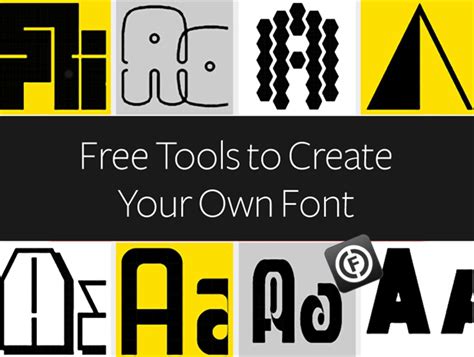
Lingojam: Create Your Own Custom Font
Hey guys! Ever wanted to design your own unique font ? Maybe you’ve got a cool idea for lettering that just isn’t out there. Well, let me tell you about Lingojam , a super neat online tool that lets you do just that! It’s surprisingly easy to use, even if you’re not a professional designer. We’re talking about a platform where you can literally draw your letters, and Lingojam turns them into a font you can download and use. Pretty awesome, right? This isn’t just for graphic design nerds; anyone can jump in and make something cool. Whether you want a quirky font for your personal blog, a signature font for your social media, or even something more serious for a small project, Lingojam is your go-to. It democratizes font creation, making it accessible to everyone. You don’t need any fancy software or a degree in typography. All you need is a mouse, a trackpad, or even a stylus if you’re feeling fancy, and your imagination. The process is intuitive, allowing you to focus on the creative aspect rather than getting bogged down by technicalities. It’s a fantastic way to add a personal touch to your digital life and stand out from the crowd. Think about the possibilities: personalized invitations, unique business cards, or just a fun way to express yourself online. Lingojam truly unlocks a new level of creativity for the everyday internet user.
How Does Lingojam Work?
So, how does this magic happen, you ask? Lingojam makes font creation super straightforward. First off, you head over to their website, which is as simple as it gets. Once you’re there, you’ll see a grid representing the alphabet, both uppercase and lowercase, along with numbers and some common symbols. Your mission, should you choose to accept it, is to draw each character . Yes, you literally draw them! You can use your mouse or trackpad to sketch out each letter. Don’t worry about perfection here; Lingojam is pretty forgiving. The tool provides a basic drawing interface, and you can go letter by letter, creating your unique shapes. It’s kind of like digital graffiti, but with a purpose! The real beauty of Lingojam is its simplicity. You don’t get overwhelmed with a million options. It focuses on the core task: making your own font . After you’ve drawn all the characters you want to include (you can skip some if you don’t need them), you hit a button, and voila ! Lingojam compiles your drawings into a functional font file. This file is typically in TTF (TrueType Font) format, which is widely compatible with most operating systems and software like Microsoft Word, Adobe Photoshop, and more. The whole process is designed to be as frictionless as possible, ensuring that the creative flow isn’t interrupted by complex steps. It’s a truly empowering experience, seeing your own handwriting or doodles transformed into a digital typeface that you can then use anywhere. It’s like giving your digital identity a unique fingerprint, making your communication instantly recognizable. The satisfaction of using a font that you created is immense, and Lingojam makes it totally achievable.
Tips for Creating an Awesome Lingojam Font
Alright, design wizards and doodle enthusiasts, let’s talk about making your Lingojam font truly shine! While the tool is super easy, there are a few tricks up my sleeve to help you create something that’s not just unique, but also genuinely usable and awesome. First off, consistency is key , guys. Try to maintain a similar style, stroke width, and character height across all your letters. If your ‘A’ is super bubbly and your ‘B’ is sharp and angular, it might look a bit chaotic. Think about the overall vibe you’re going for. Are you aiming for something handwritten and casual, or more formal and structured? Sticking to a theme will make your font look more professional and cohesive. Another pro tip: don’t be afraid to experiment! Lingojam is your playground. Try different shapes, add little flourishes, or go minimalist. What looks good for one letter might inspire a different approach for another. Also, consider legibility. While artistic flair is great, make sure people can actually read your font, especially if you plan to use it for longer texts. Sometimes, a slightly simplified version of a crazy idea is the best way to go. Don’t stress about perfection on the first try . Lingojam allows you to go back and edit characters. So, if you draw a letter and later decide it doesn’t quite fit, you can always tweak it. Take breaks! Stepping away and coming back with fresh eyes can help you spot inconsistencies or areas for improvement. Finally, save your progress if the tool offers it (though Lingojam typically generates the font at the end, so you can always re-download). But more importantly, download your font and test it out ! See how it looks in different sizes and contexts. Does it work for headings? How about body text? Your feedback loop is crucial. Creating a font is a journey, and Lingojam makes it a fun and accessible one for everyone. So go ahead, embrace the creativity, and make some typographic magic happen!
Why You Should Use Lingojam
So, why should you bother with Lingojam ? Well, let me count the ways! Firstly, it’s incredibly accessible . You don’t need to be a graphic design guru or spend a fortune on software. Anyone with an internet connection and a desire to create can jump right in. This makes personalized design achievable for everyone, from students working on school projects to small business owners looking for a unique brand identity. Secondly, it offers unparalleled personalization . Forget generic fonts! With Lingojam, you can create a typeface that truly reflects your personality, your brand, or your specific project’s mood. Imagine using a font that’s literally based on your own handwriting, or one that perfectly captures the whimsical theme of your wedding invitations. It adds a level of authenticity and connection that pre-made fonts just can’t match. Thirdly, it’s a fun and engaging creative outlet . Sometimes you just need to flex those creative muscles, and Lingojam provides a low-stakes, high-reward way to do it. It’s satisfying to see your drawings transform into something functional and shareable. It’s a fantastic way to kill time productively, and you end up with a tangible digital asset. Moreover, using a custom font can boost your brand recognition . If you’re a blogger, an artist, or run a small business, a unique font can become part of your signature style, making your content instantly recognizable across different platforms. It differentiates you from the competition and makes your brand memorable. It’s a subtle yet powerful branding tool. Lastly, it’s free ! That’s right, you can create and download your own custom fonts without spending a single dime. This is a huge advantage, especially for those on a budget. Lingojam empowers you to express yourself creatively and professionally without any financial barriers. It’s a win-win-win situation, really. You get creativity, personalization, and a professional-looking output, all rolled into one easy-to-use package. So, if you’ve ever thought about diving into font creation, give Lingojam a whirl – you might surprise yourself with what you can create!
Exploring the Possibilities with Lingojam
The real beauty of Lingojam lies in the sheer breadth of possibilities it unlocks for you, guys. Think beyond just everyday use; this tool can be a game-changer for specific creative endeavors. For instance, if you’re a writer working on a fantasy novel, you could design a unique elvish or dwarvish script that perfectly matches the world you’ve built. This adds an incredible layer of immersion for your readers. Or, perhaps you’re a game developer working on an indie project; a custom font can help establish a distinct visual identity for your game’s UI or narrative elements, making it feel truly one-of-a-kind. Educators can even use Lingojam to create custom alphabets for teaching young children, making learning more engaging and visually stimulating. Imagine a playful, chunky font designed specifically for early readers! For scrapbookers and crafters, Lingojam opens doors to personalized digital elements that can be printed and used in physical projects, adding that special handmade touch. Business owners, as mentioned, can craft a unique wordmark or a signature font that becomes synonymous with their brand. This is particularly effective for small businesses or startups that want to establish a strong visual identity without the hefty price tag of professional font design. Even for personal use, think about creating a font based on your own handwriting to sign off emails or personal notes – it’s a subtle way to add your personal flair. The possibilities are truly endless, limited only by your imagination. Lingojam democratizes design, allowing you to bring intricate typographic ideas to life easily. It’s not just about making a font; it’s about creating a visual language that speaks uniquely to your audience or expresses your individual style. So, dive deep, experiment, and see what unique typographic worlds you can build with this fantastic tool. The journey from a simple sketch to a downloadable font is incredibly rewarding, and Lingojam makes it accessible to absolutely everyone. It’s a testament to how technology can empower individual creativity in amazing ways, making complex design tasks feel simple and fun. Get ready to explore a universe of custom typography!
Lingojam: Your Personal Typeface Creator
In a nutshell, Lingojam is your personal gateway to becoming a font creator. It strips away the complexity often associated with typography and gives you a direct, intuitive interface to bring your lettering ideas to life. Whether you’re aiming for a quirky, hand-drawn look for your personal blog, a sophisticated serif font for a creative writing project, or a bold display font for a special event, Lingojam empowers you to do it all. The ability to draw each character and see it instantly become part of a downloadable font file is incredibly satisfying. It’s more than just a tool; it’s a platform for self-expression and creative exploration . You can create fonts that are deeply personal, reflecting your unique style, or design functional typefaces that serve a specific purpose for your projects or business. The low barrier to entry means anyone can experiment, learn, and create without needing prior design experience or expensive software. It’s a fantastic resource for students, hobbyists, artists, and small business owners alike. Lingojam encourages you to think about typography in a new way, appreciating the nuances of each letterform and how they work together. It’s a reminder that design can be fun, accessible, and deeply personal. So, if you’ve got a font idea buzzing in your head, don’t let it stay there. Head over to Lingojam , unleash your creativity, and start designing your very own custom font today. You might just discover a passion you never knew you had! It’s a wonderful way to add a unique touch to your digital presence and make your mark on the internet, one letter at a time. Give it a try – you won’t regret it!